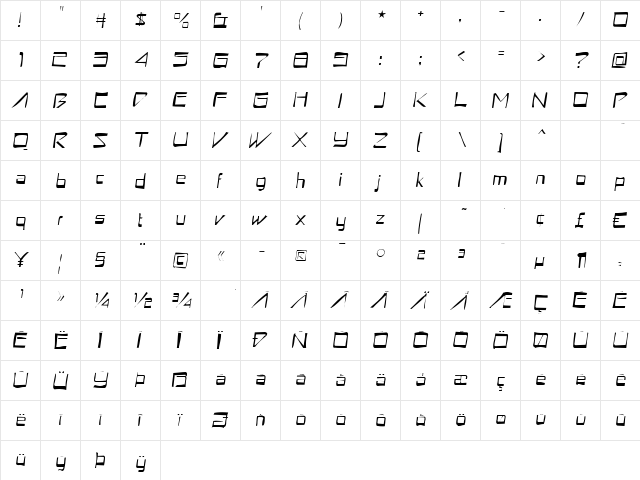
Astron Boy Gaunt Italic
Design Context for Astron Boy Gaunt Typeface
Astron Boy Gaunt offers clean, dependable letterforms without strong stylistic allegiance, making it a practical choice for designers who need flexibility. The dynamic lean of this cut emphasises speed and emphasis in any layout.